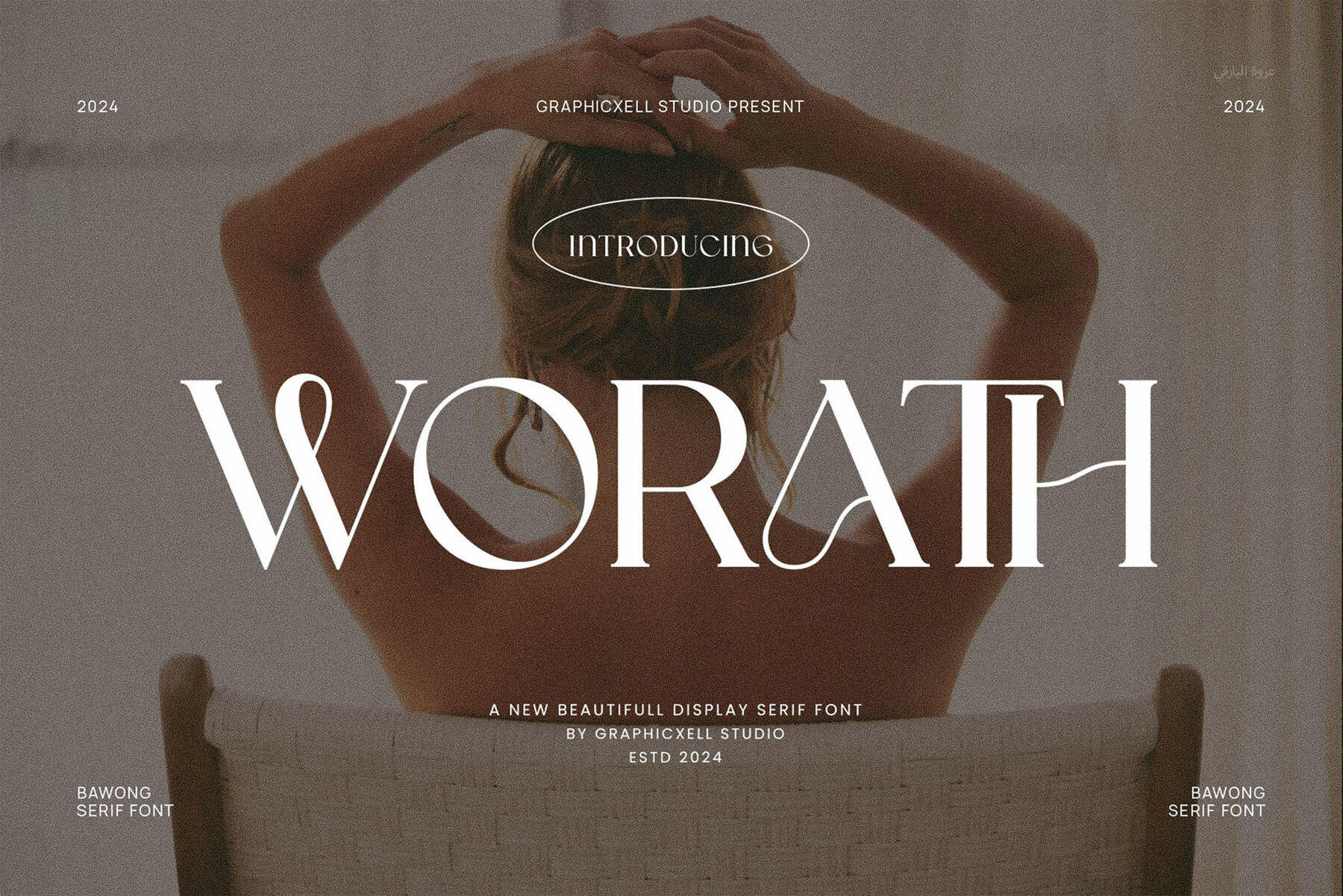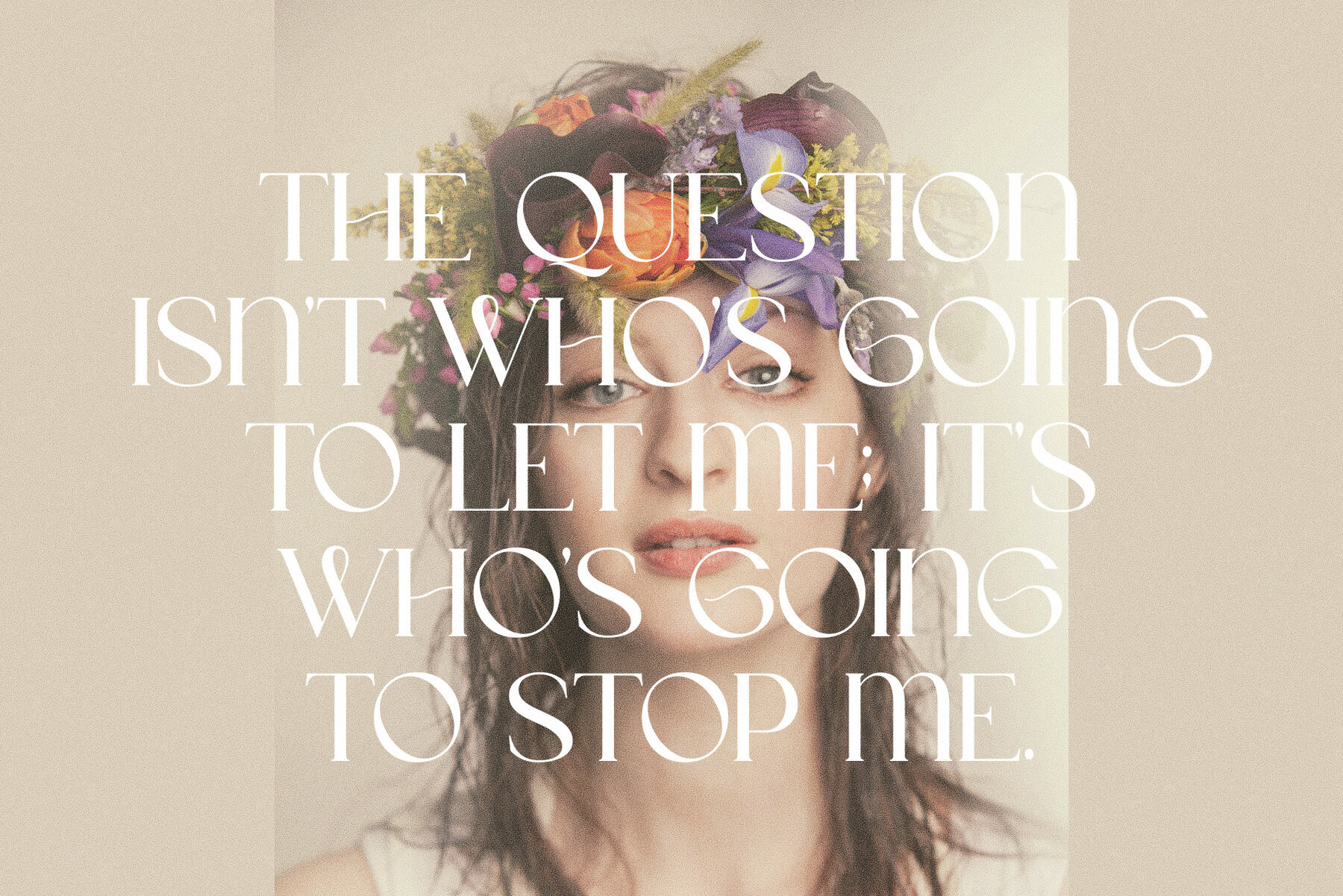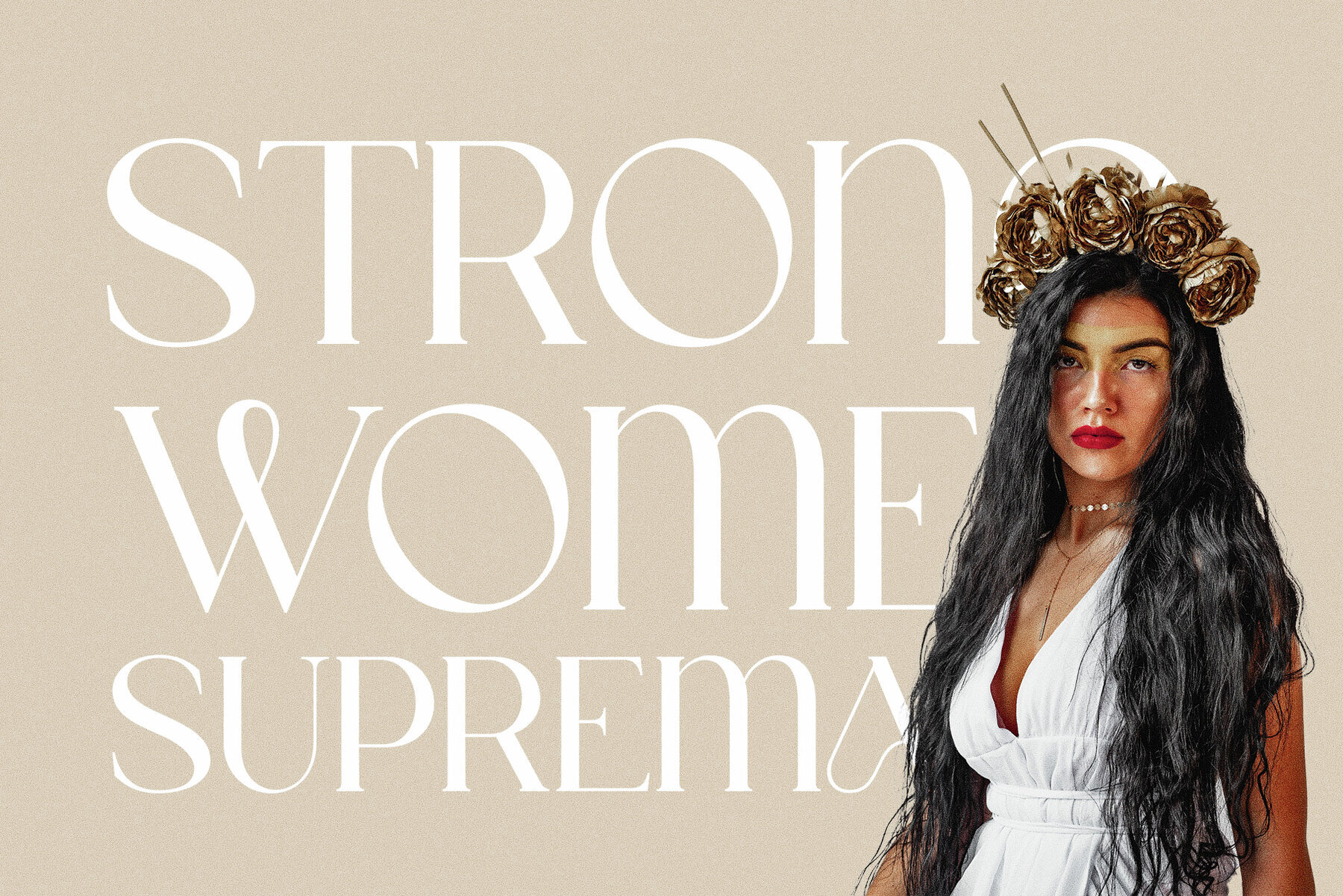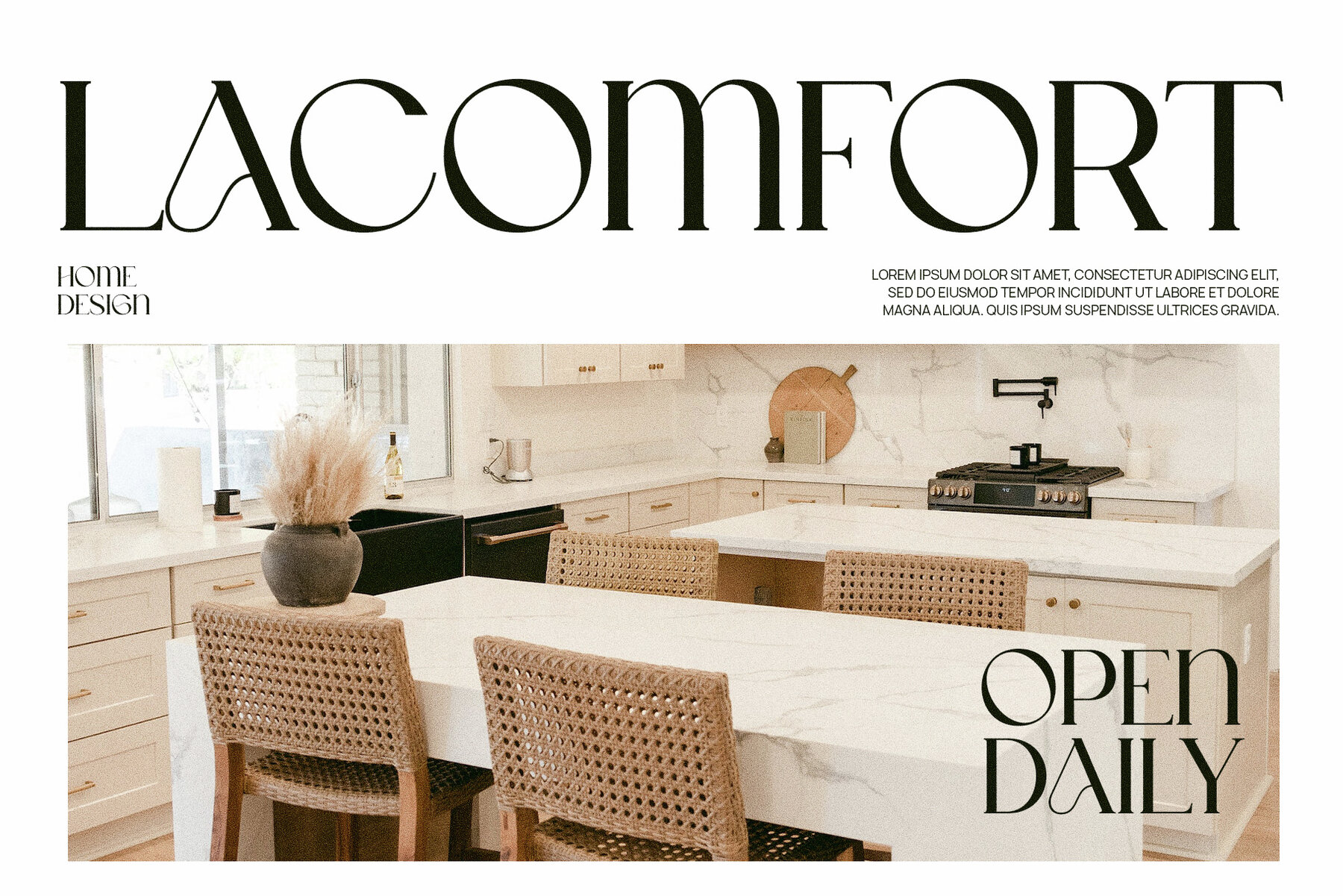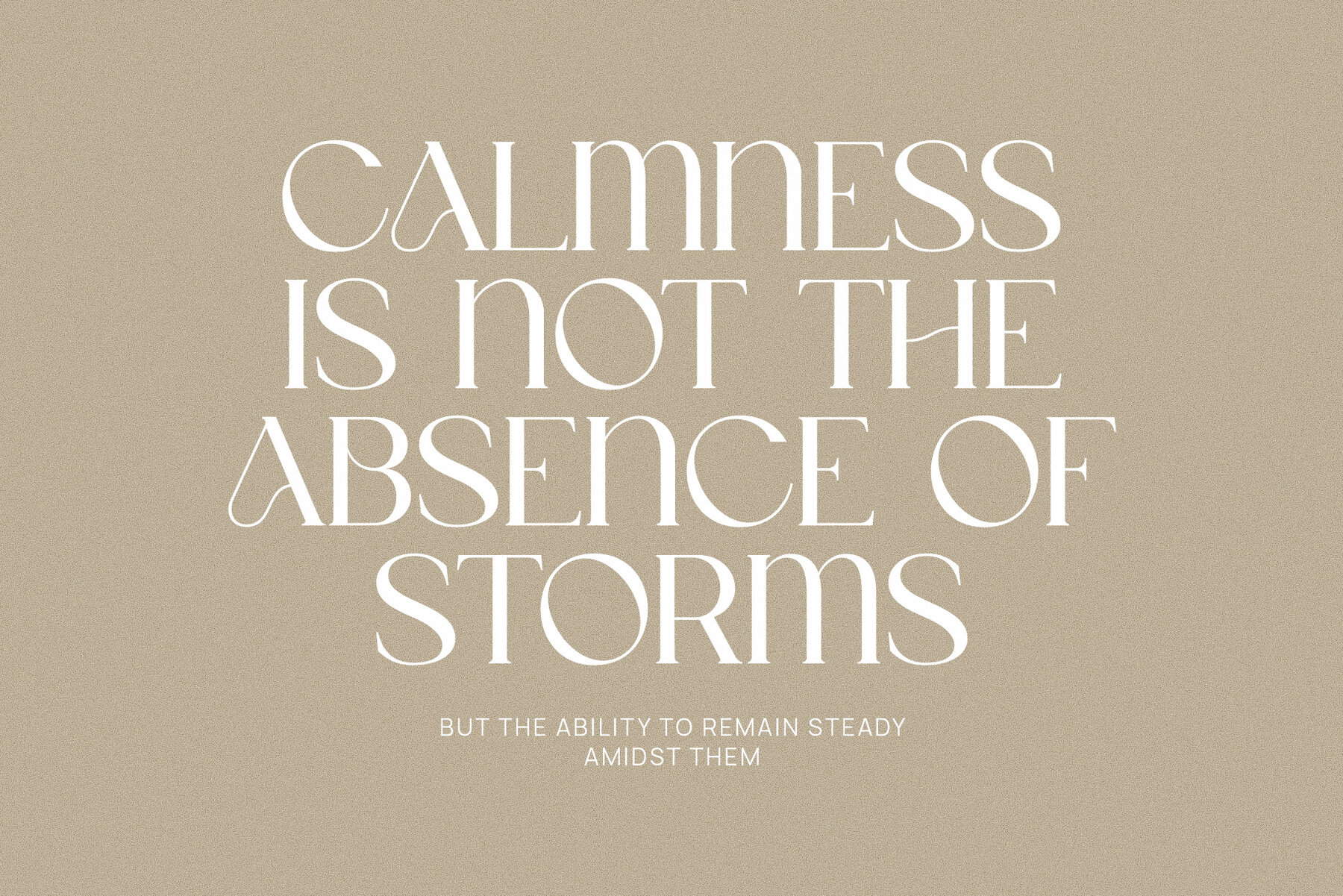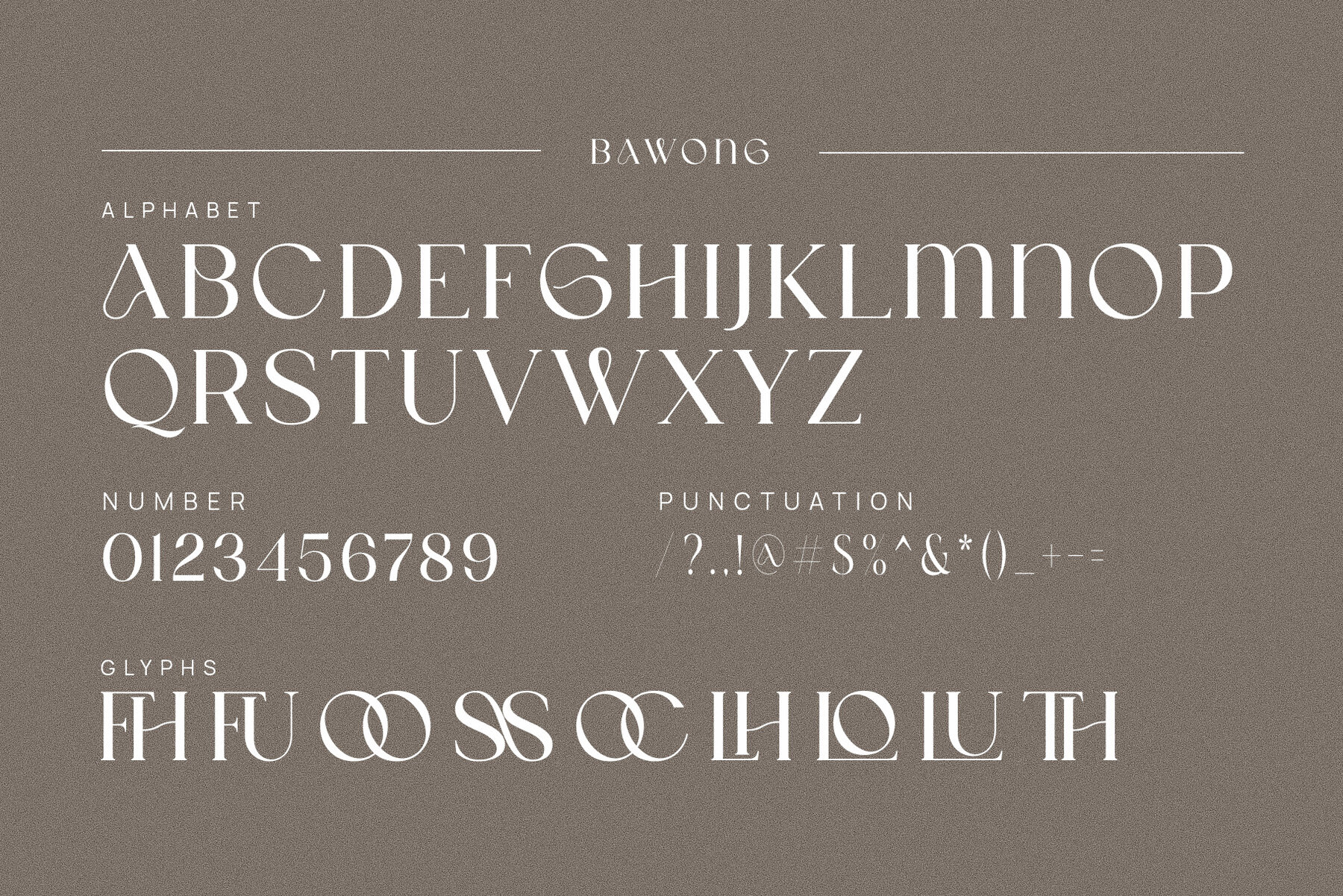
Worath Font
Worath Regular
This font is a display serif with a transitional and refined feel, characterized by its high contrast and sharp, but elegant serifs. It blends traditional qualities with a modern-retro aesthetic, suitable for fashion and editorial work. Its bold, sharp serifs and contrast between thick and thin strokes make it ideal for headlines and large text where a touch of sophistication is desired.